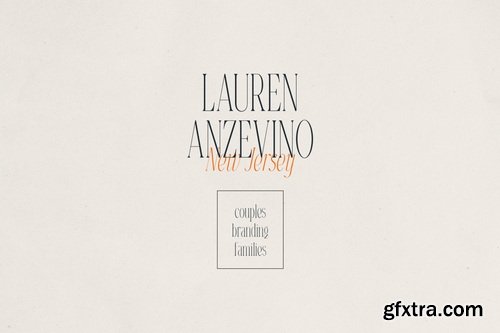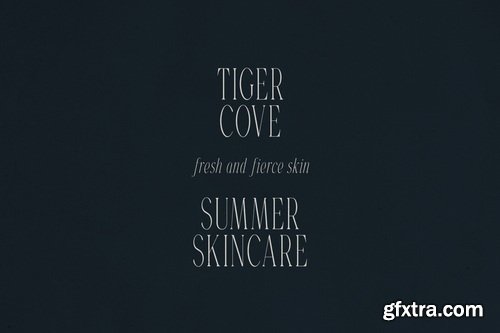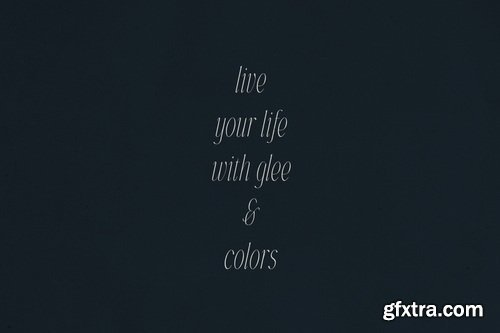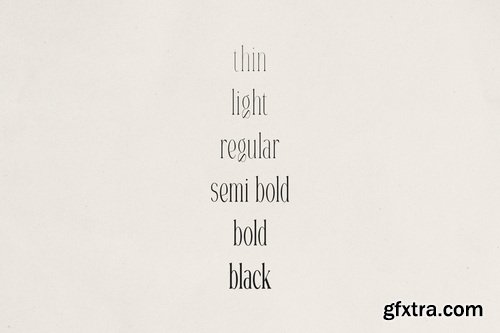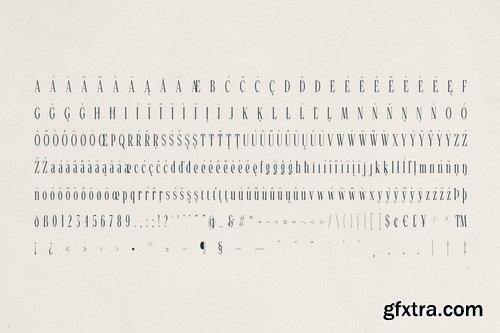
CreativeMarket - Veliora Elegant Long Serif
- Veliora is a refined long serif typeface designed to bring timeless sophistication to modern design. With 5 carefully crafted weights—ranging from Thin to Black — and matching italics for each, this font family offers versatility for editorial layouts, branding, packaging, websites, and more.
- The elongated letterforms and graceful contrast strike the perfect balance between classic elegance and contemporary minimalism. Whether you're designing magazine spreads, luxury logos, or high-end product packaging, Veliora adds a distinctive, professional touch.